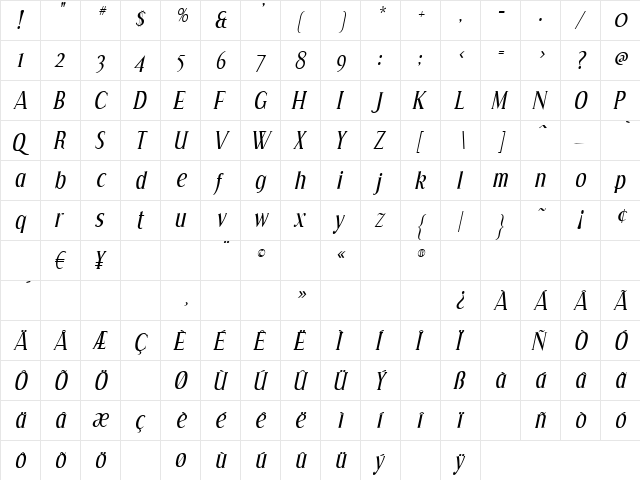
Effloresce Italic
Design Context for Effloresce Typeface
Effloresce takes a measured approach to typography — its balanced proportions and neutral character make it a reliable workhorse for both digital and print work. The slanted form adds forward momentum and visual energy.
Pro Tip: Use Effloresce for emphasis, pull quotes, and subheadings where its slanted energy can add rhythm to the layout.